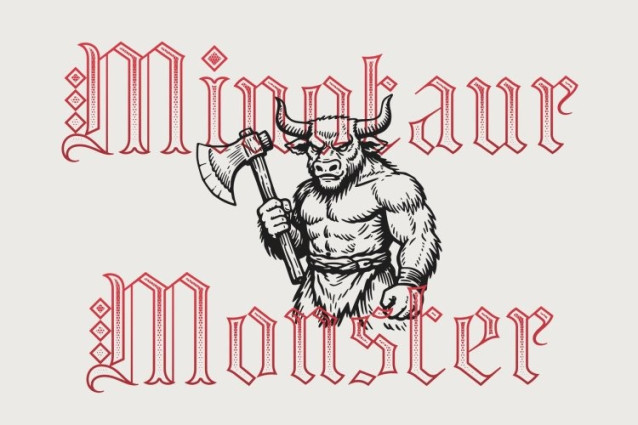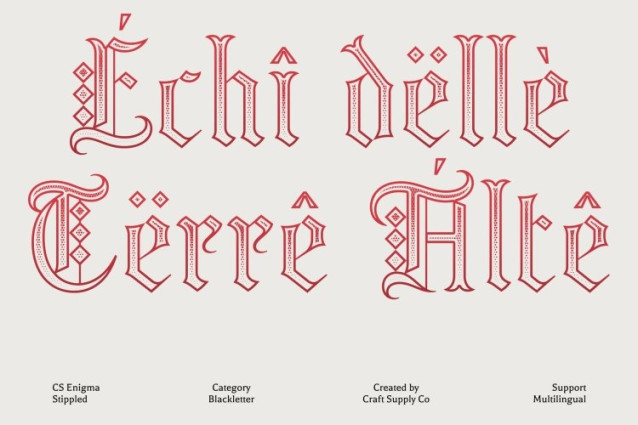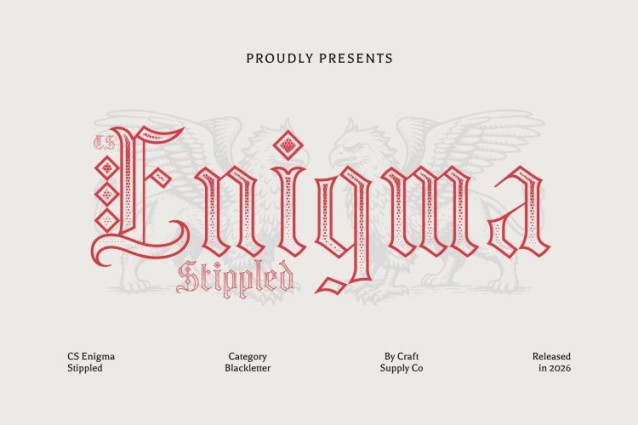
CS Enigma Stippled Font
CS Enigma Stippled Font is a striking modern blackletter display font that revitalizes the traditional Gothic aesthetic with a contemporary edge. It retains the essence of classic blackletter sharp, angular strokes, ornamental rhythm, and dramatic structure while refining the forms with cleaner proportions and improved readability. The addition of a stippled texture introduces a subtle dotted surface that adds depth and a handcrafted feel, enriching the font’s visual character.
Refined Drama with Modern Clarity
While preserving the bold drama of traditional blackletter typography, simplifies certain structural details to create a more balanced and versatile design. The letterforms remain expressive and powerful, yet smoother and more approachable for modern design contexts. The stippled finish enhances the aesthetic by adding texture and dimension without diminishing clarity.
Bold Style for Expressive Design
With its strong rhythm and distinctive letterforms, this font delivers a confident typographic presence. The combination of Gothic influence and textured detailing creates a font that feels both historic and contemporary, perfect for designs that want to communicate attitude, sophistication, and artistic intensity.
Perfect for Edgy and Creative Applications
This is ideal for music posters, fashion branding, editorial layouts, album covers, merchandise, and experimental visual identities. Its fusion of Gothic tradition, modern refinement, and stippled texture creates a bold display typeface that stands out across both digital and print design.